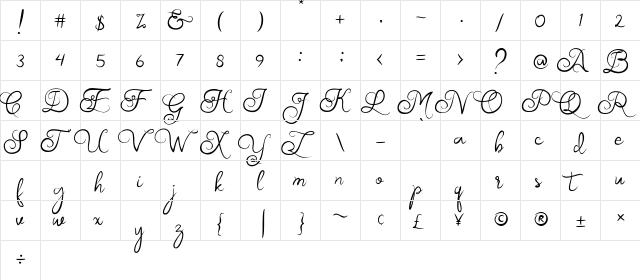
Akurapoppo Luxury Handwritten Regular
Design Context for Akurapoppo Luxury Handwritten Typeface
Akurapoppo Luxury Handwritten brings a calligraphic fluidity to the page — its connecting strokes and expressive curves give it an unmistakably human quality.
Font Pairing: Combine Akurapoppo Luxury Handwritten with a simple geometric sans for maximum contrast — the tension between flowing curves and clean structure is a classic typographic pairing.
Pro Tip: Use Akurapoppo Luxury Handwritten for short runs of text — names, titles, or taglines. Extended body copy in script faces tires the eye quickly.